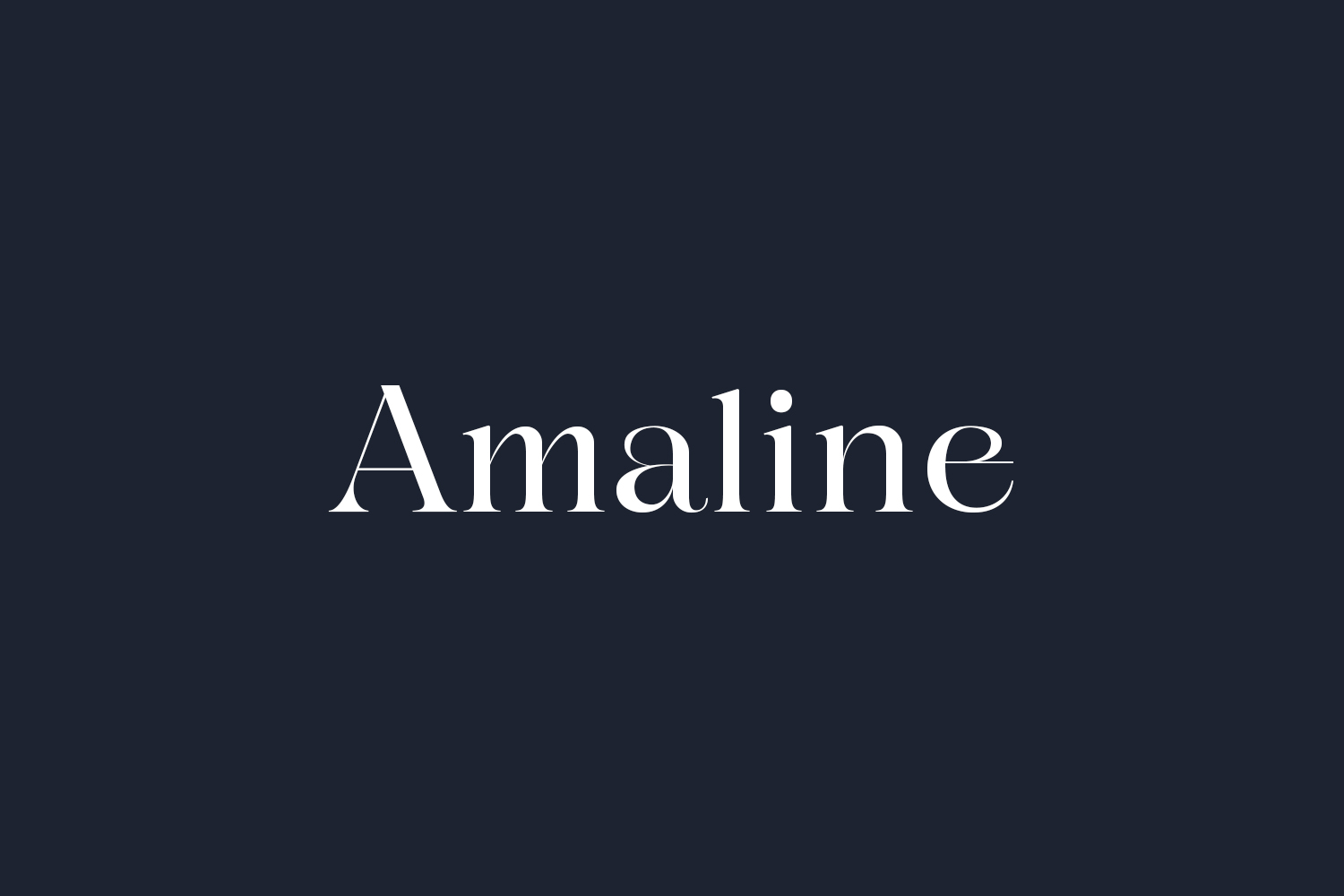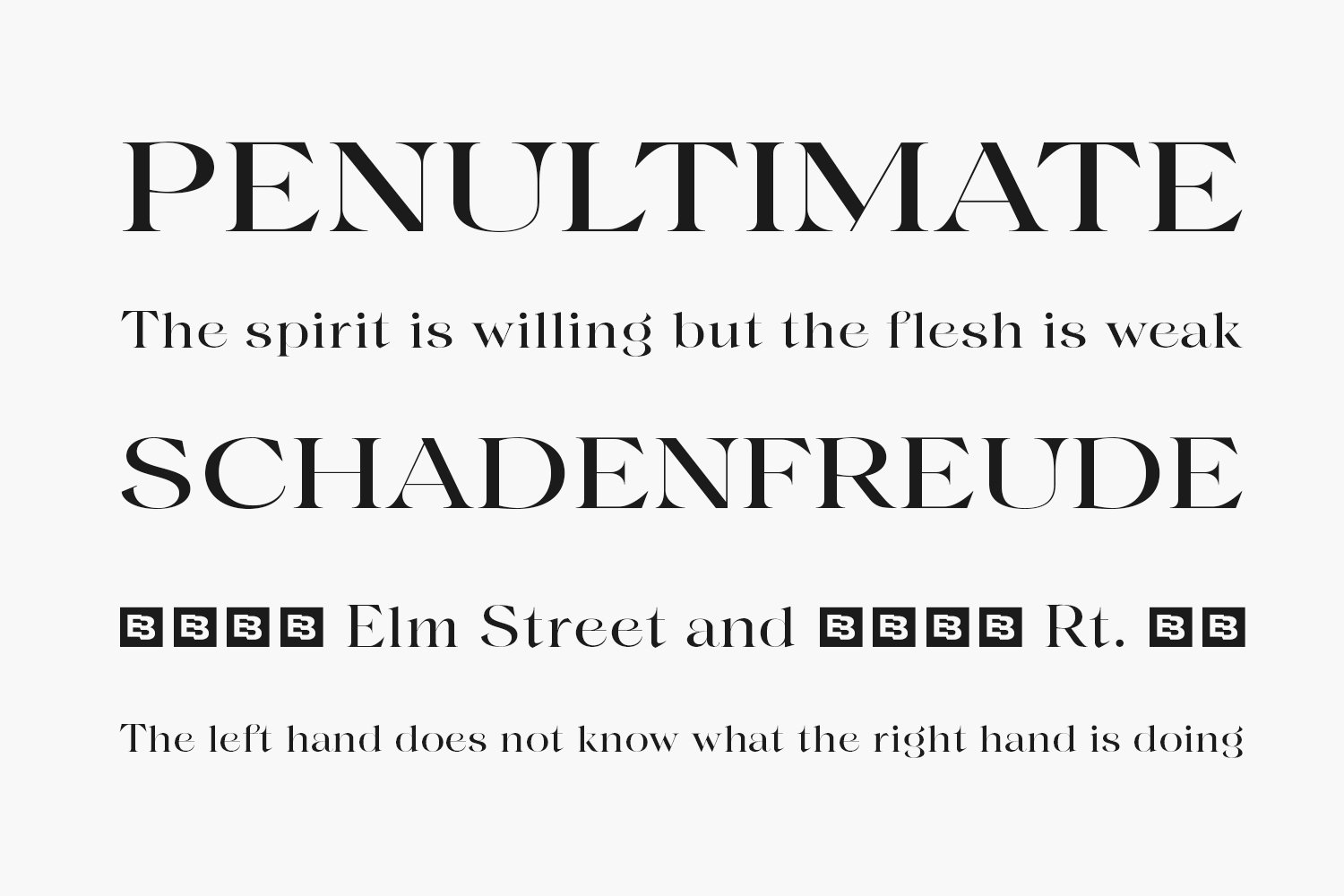
Amaline Free Font is an elegant and genuine serif font. It is the best choice for creating eye-catching logos, branding, and quotes. Amaline Free Font was designed by Eko Bimantara is a demo and free for personal use only. Please purchase the full version for commercial use.